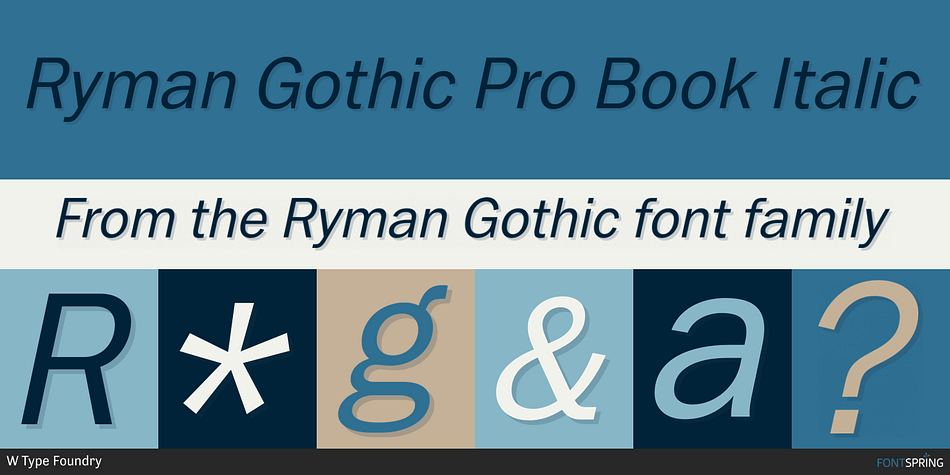
Ryman Gothic Pro Book Italic
Designed by Diego Aravena and Franco Hernández, Ryman Gothic is a sans serif font family. This typeface has eighteen styles and was published by W Type Foundry.
Ryman Gothic is inspired by American Wood Types and Gothic Typefaces, mainly in the work of Edwin Allen and Morris Fuller Benton. The result is a hybrid combining gothic proportions with the contrast of wood types. While drawing consonants guided by gothic proportions, vowels were designed slightly wider, making them not only more legible when it comes to long text designs, but also more attractive.
Ryman Gothic comes in 8 weights plus its matching italics, ranging from Thin to Heavy. Each weight includes extended language support (Latin + Cyrillic + Greek), ligatures, arrows and more.